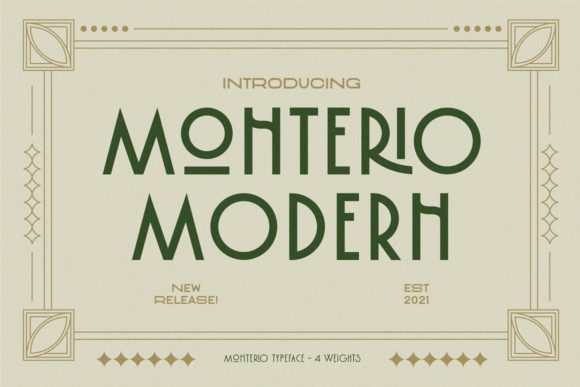
Behold, the Monterio Font, a timeless masterpiece crafted by Creative Corner, awaits your artistic embrace! This sans serif wonder, an ode to the Art Deco era, captures the essence of vintage elegance with its bold, geometric strokes and captivating curves. Each letter, a work of art in its own right, exudes an aura of sophistication and charm, inviting you to embark on a creative journey like no other.
With over 300 glyphs at your disposal, including alternates and a vast array of multilingual characters, the Monterio Font unlocks a world of limitless possibilities. Unleash your imagination and delve into the depths of creativity as you explore the unique nuances of this extraordinary typeface.
Whether you're a seasoned designer or just starting your creative journey, the Monterio Font is your perfect companion. Its versatility knows no bounds, making it an ideal choice for a wide range of projects, from striking logos and captivating posters to eye-catching social media graphics and elegant invitations.
Immerse yourself in the allure of the past as you bring your designs to life with the Monterio Font. Its vintage charm will add a touch of nostalgia to your creations, while its contemporary twist ensures that your work remains fresh and relevant.